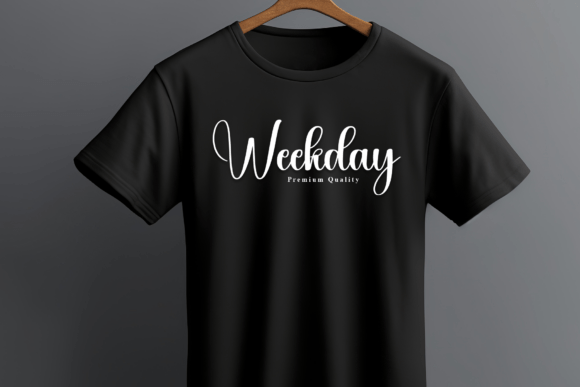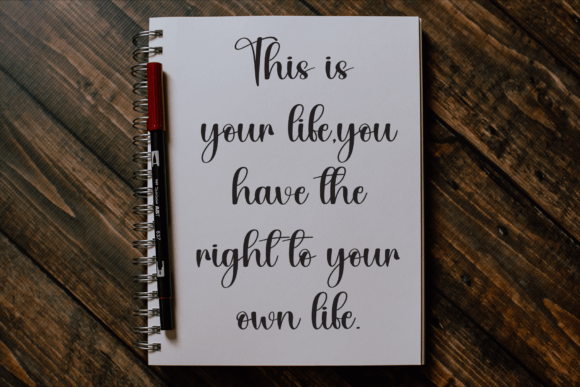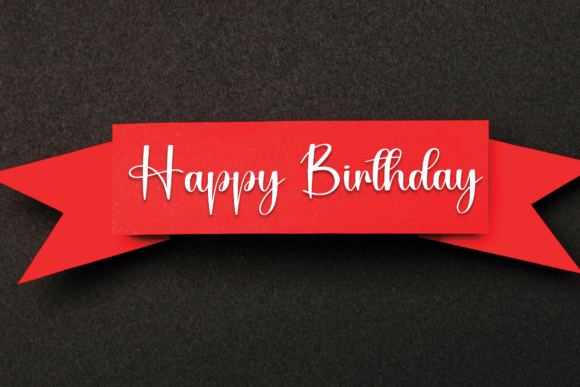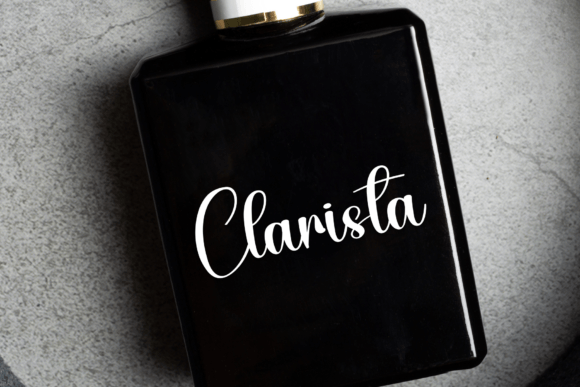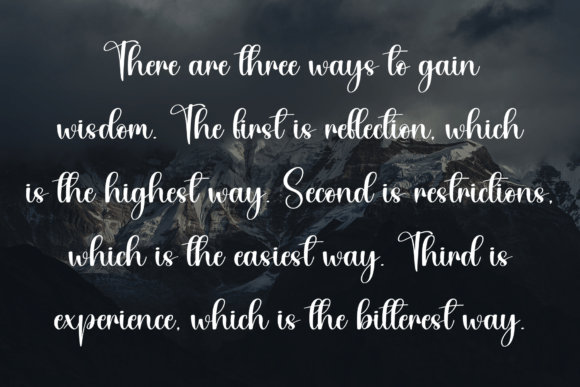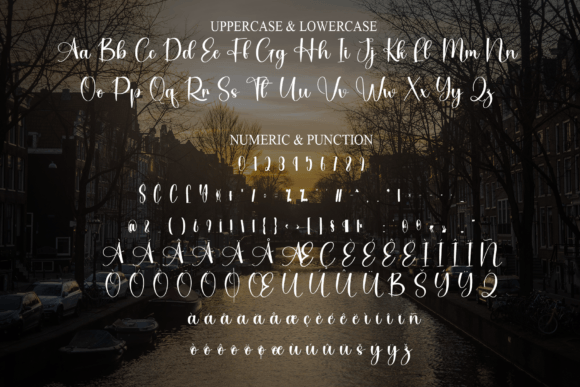
Introducing Amsterdam Font: Elevate Your Designs with Elegance and Charm
In the world of typography, few fonts manage to capture the essence of sophistication and charm as effectively as the Amsterdam Font. This stylish handwritten script font is designed to bring a touch of elegance to any design project, making it perfect for creatives looking to add a personal and refined feel to their work. Whether you’re crafting invitations, developing a brand identity, or curating social media content, Amsterdam Font is poised to transform your designs with its fluid strokes and natural flow.
The Essence of Amsterdam Font
Amsterdam Font stands out in the realm of digital typography due to its unique blend of fluidity and natural charm. Its design is characterized by:
- Fluid Strokes: The font features smooth, flowing strokes that contribute to its sophisticated appearance. Each letter transitions seamlessly into the next, creating a harmonious and visually appealing text.
- Natural Flow: The natural flow of Amsterdam Font gives it an organic feel, reminiscent of handwriting. This quality makes it highly versatile and suitable for a wide range of design applications.
- Elegance and Charm: The overall design exudes an air of elegance and charm, making it an excellent choice for projects that require a touch of sophistication.
Applications of Amsterdam Font
The versatility of Amsterdam Font makes it an invaluable asset for designers and crafters across various platforms. Here are some of the key areas where this font can make a significant impact:
- Invitations: Add a personal and elegant touch to wedding invitations, birthday parties, and other special occasions. The font’s sophisticated look ensures that your invitations stand out and set the tone for the event.
- Branding: Elevate your brand’s visual identity with Amsterdam Font. Its unique charm and elegance can help create a memorable brand image that resonates with your target audience.
- Social Media: Enhance your social media presence with captivating text that draws attention. Whether you’re creating posts, stories, or captions, Amsterdam Font can add a creative and sophisticated flair to your content.
Amsterdam Font offers numerous benefits for designers and crafters looking to enhance their projects with a personal touch:
- Warmth and Creativity: The font brings a sense of warmth and creativity to any design, making it perfect for projects that require a personal and human touch.
- Versatility: Its versatile nature allows it to be used in both digital and print designs, offering flexibility across different mediums.
Tips for Using Amsterdam Font Effectively
To maximize the impact of Amsterdam Font in your designs, consider the following tips:
- Pair with Complementary Fonts: Combine Amsterdam Font with simpler fonts to create visual contrast and hierarchy in your designs.
- Adjust Letter Spacing: Experiment with letter spacing to enhance readability and achieve the desired aesthetic effect.
- Utilize Font Sizes: Play with different font sizes to emphasize key messages and create a dynamic visual flow.
Amsterdam Font is a stylish and elegant handwritten script font that can elevate your designs with its fluid strokes and natural charm. Perfect for designers and crafters looking to add a personal touch to their projects, this font offers versatility, warmth, and creativity. Whether you’re working on invitations, branding, or social media content, Amsterdam Font is an excellent choice for bringing sophistication and charm to your work.